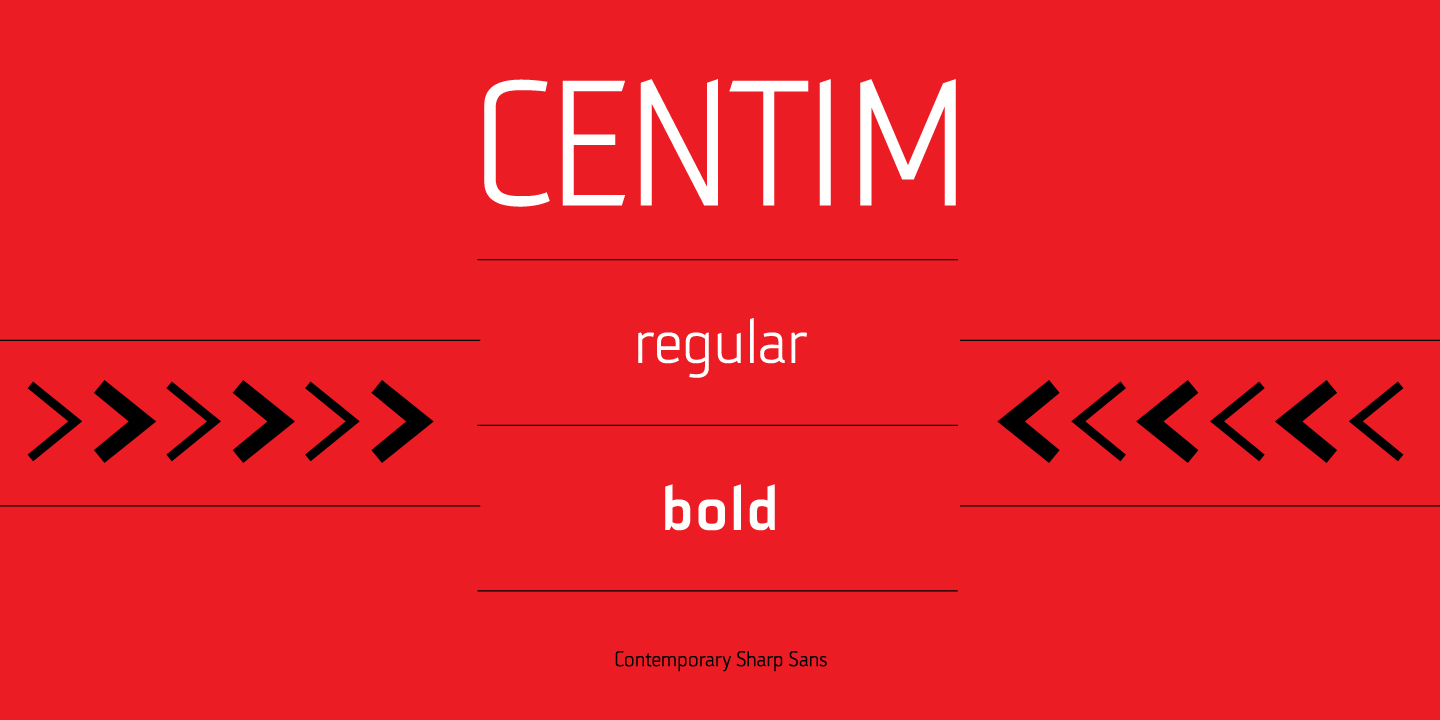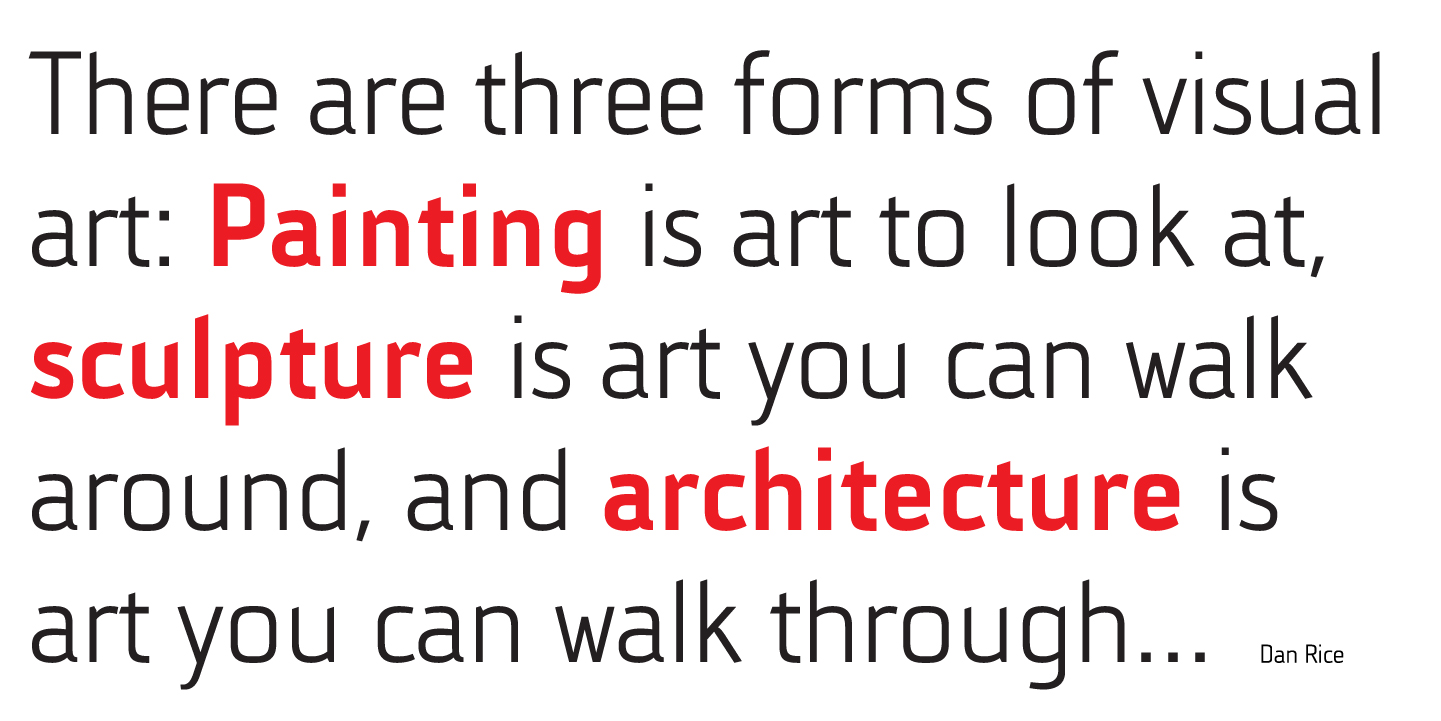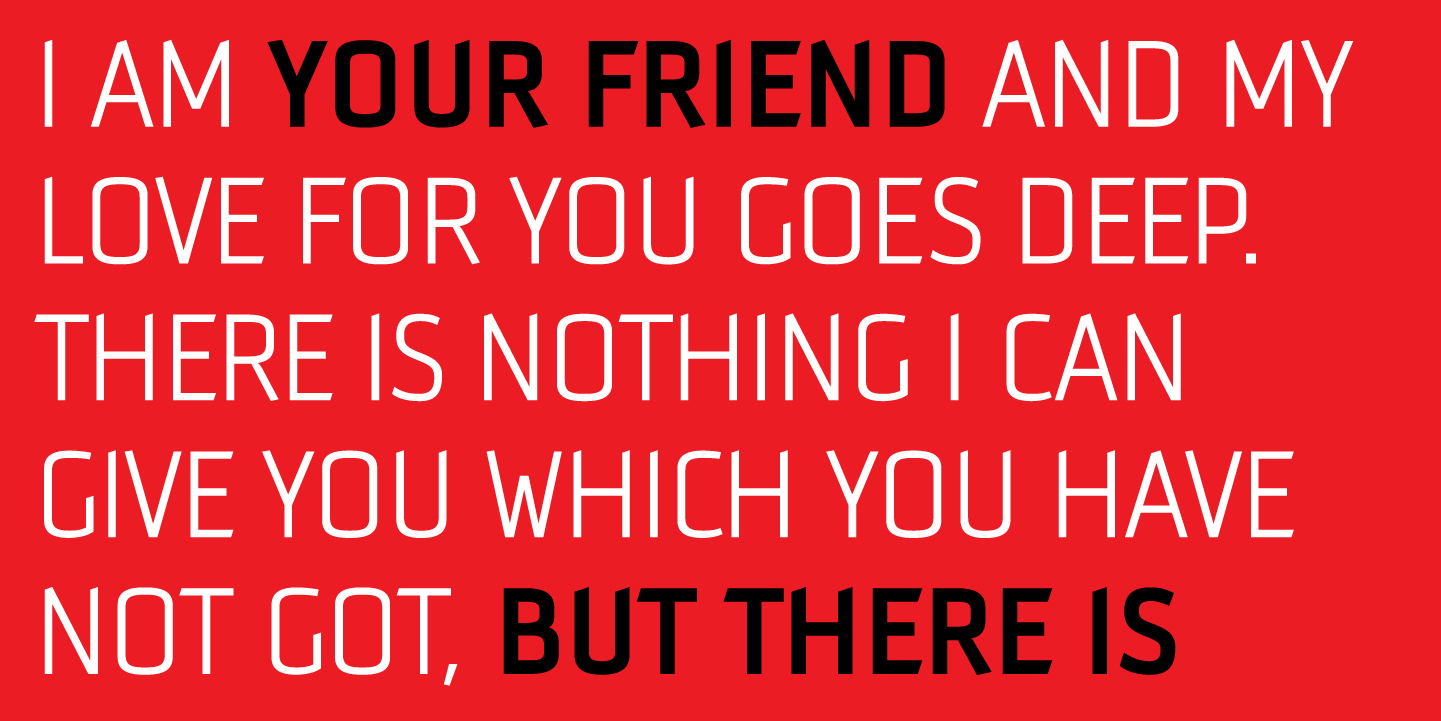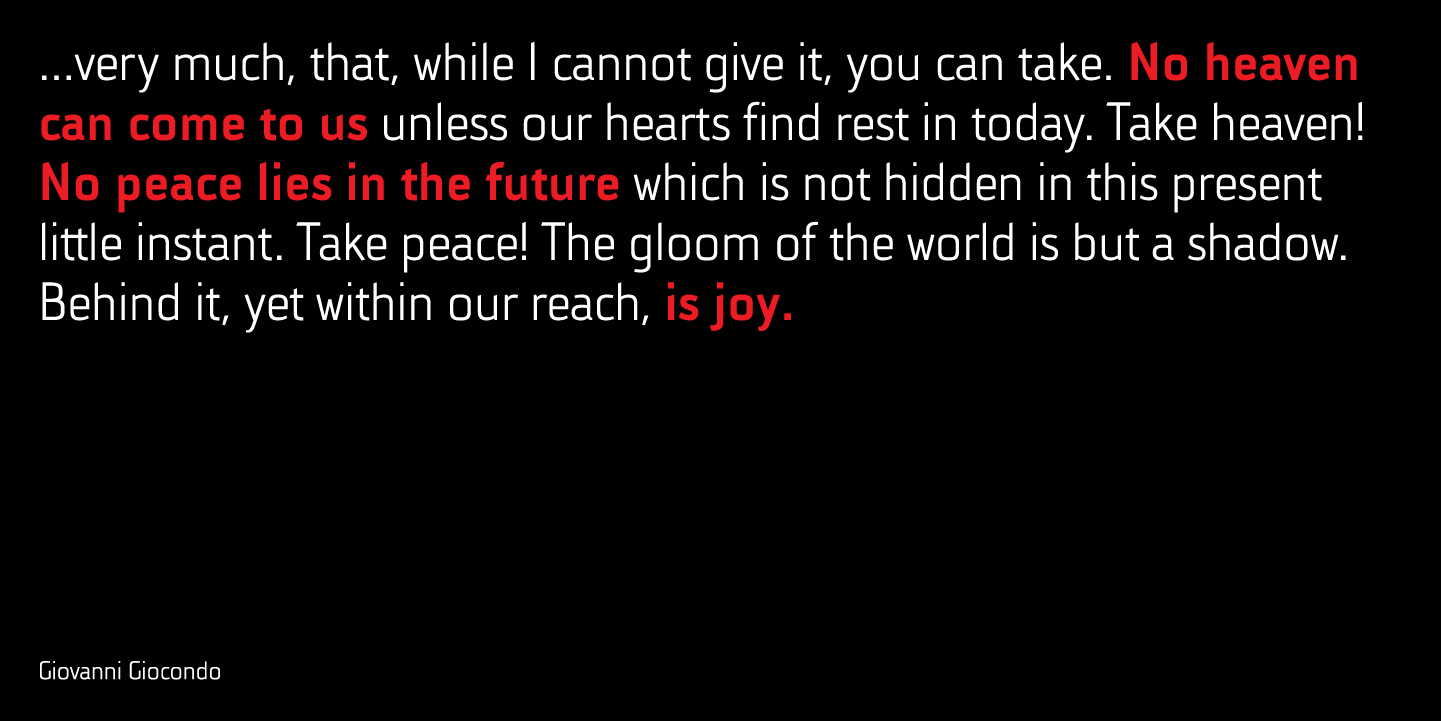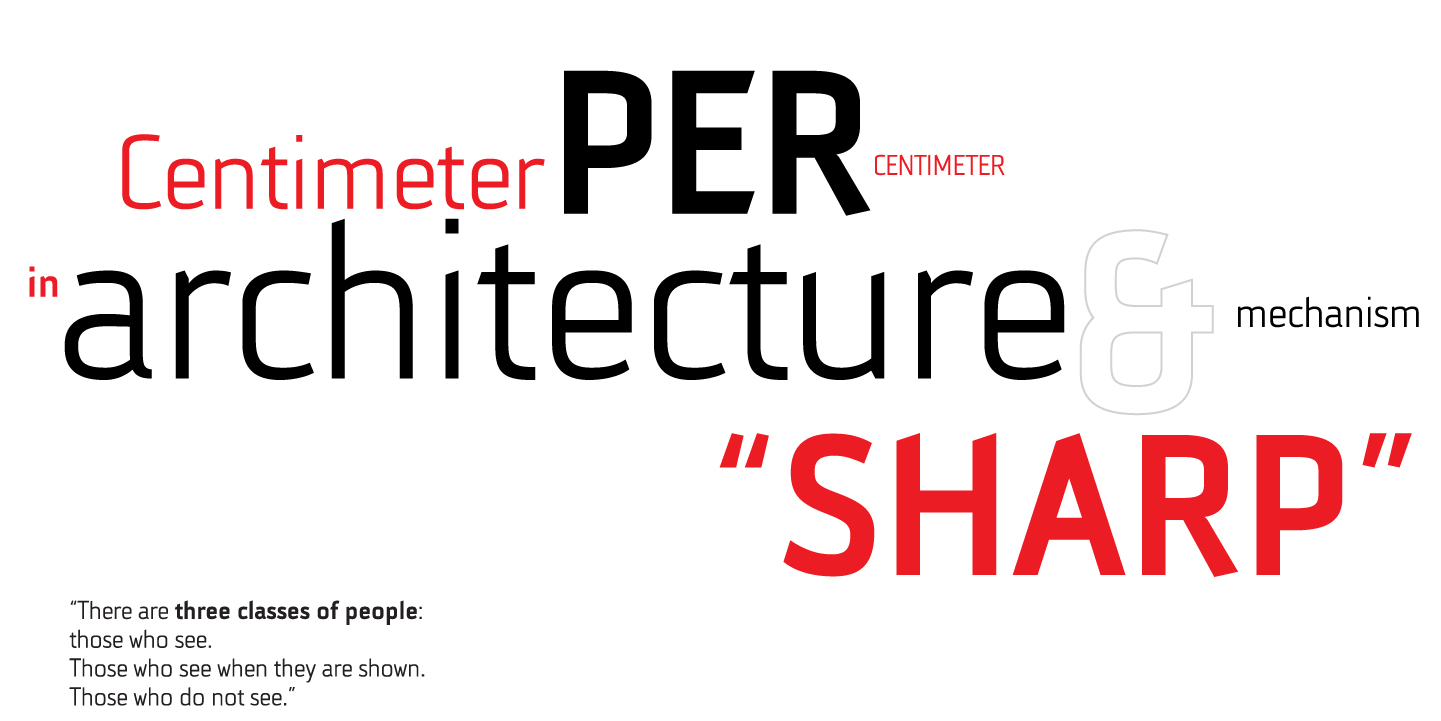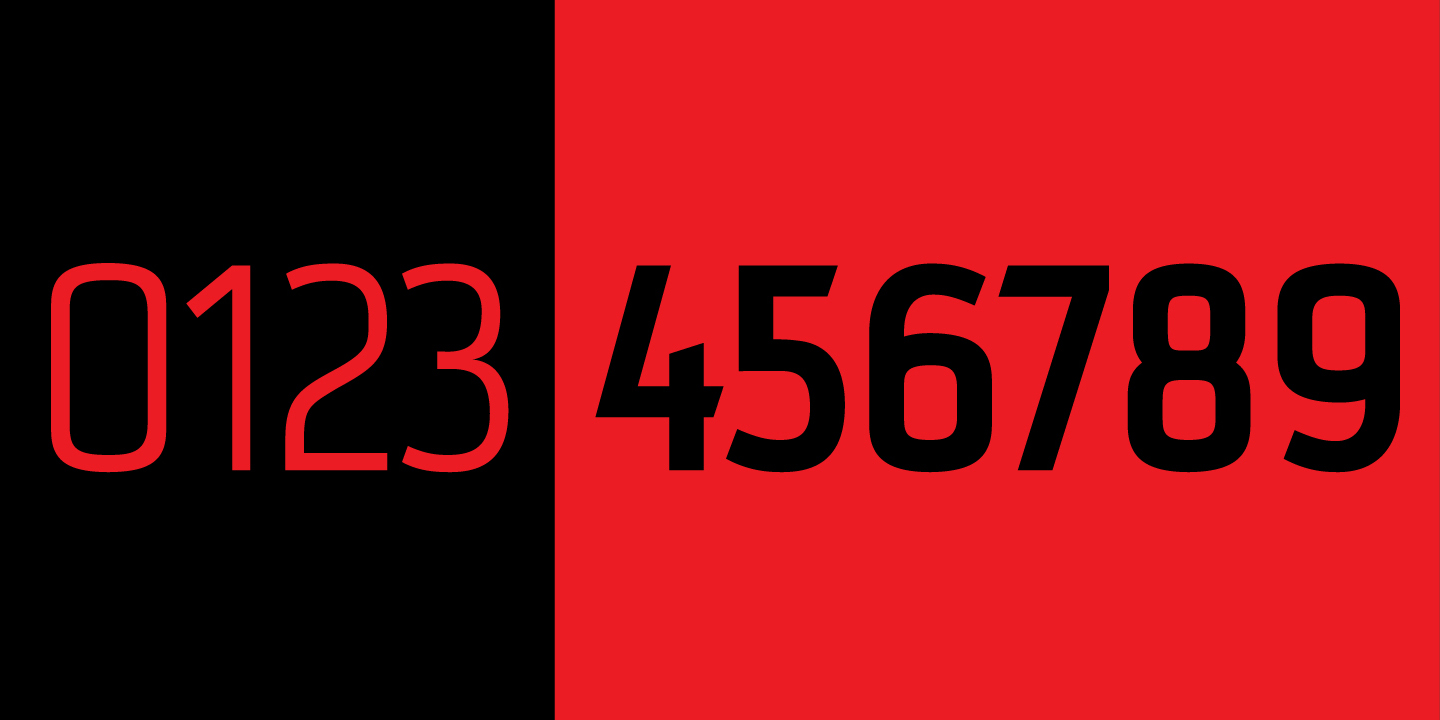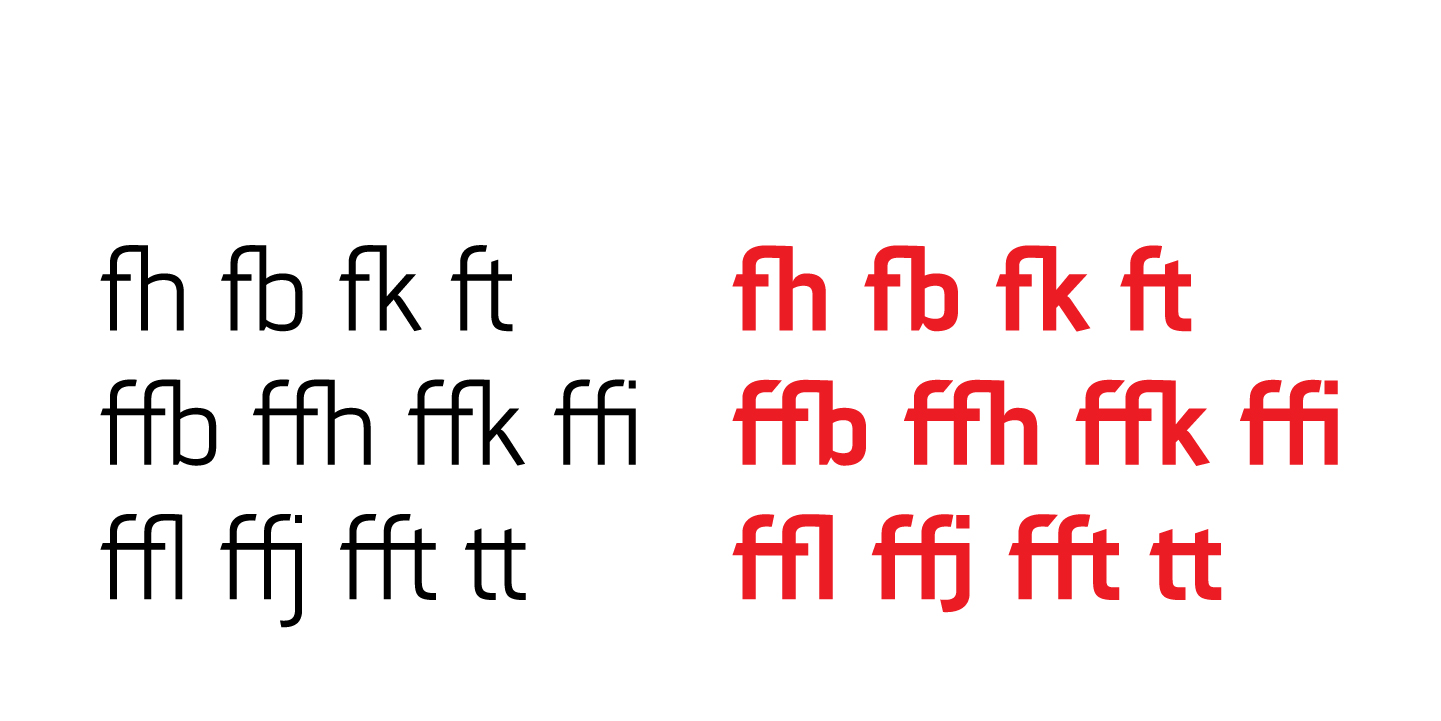
Centim is contemporary sans with sharp top endings of stems that give a bit technical charm to typeface. With a squarish look, it can be used widely in all modern publications or become a part of an corporate identity. In smaller sizes, Centim offers good readability due to its simple and good balanced lines. Centim is available in Regular and Bold weights, as an ideal high-contrasted combination where all characteristics of the typeface are purely effective. Centim is the archaic Serbian word for Centimeter, a word that was mostly used in tailoring during XIX and XX century.